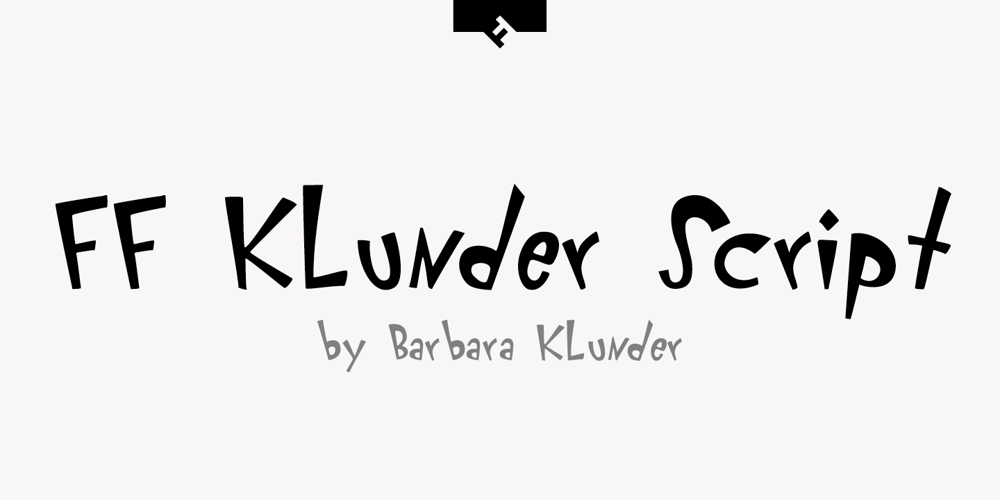
FF Klunder Script Font Family was designed by Barbara Klunder and published by FontFont. FF Klunder Script contains 2 styles and family package options. Canadian type designer Barbara Klunder created this display FontFont in 1994. The family contains 2 weights: Regular and Bold and is ideally suited for festive occasions and poster and billboards. FF Klunder Script provides advanced typographical support with features such as ligatures and case-sensitive forms. It comes with proportional lining figures.